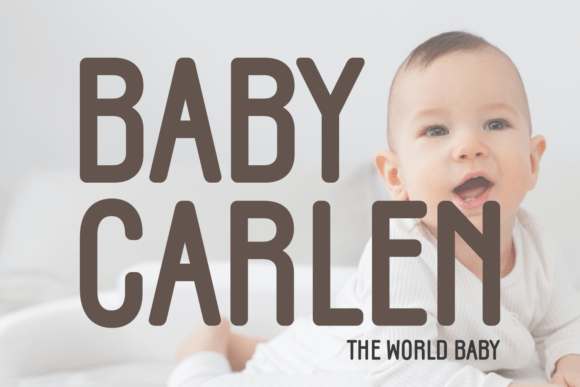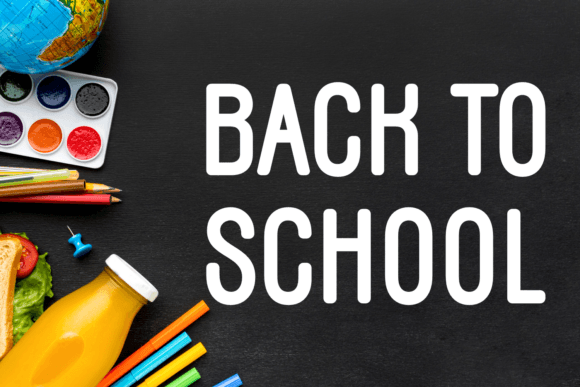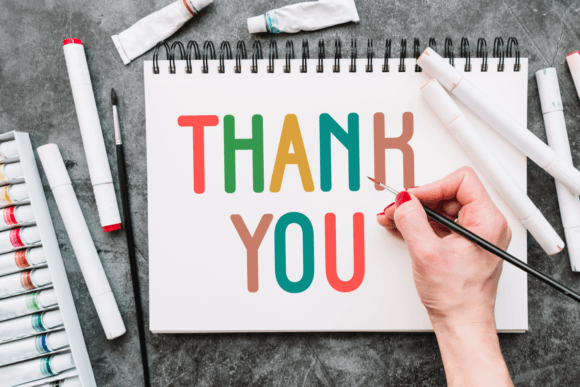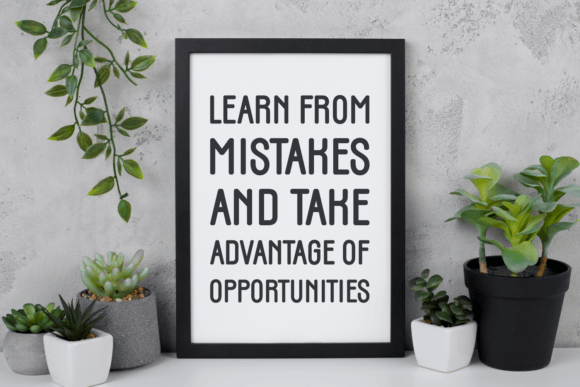
Introducing Billman Font: The Ultimate Choice for Modern Designs
In the world of typography, fonts play a crucial role in making or breaking a design. A well-chosen font can elevate your project from ordinary to extraordinary. If you’re a designer or crafter looking for a clean, modern, and elegant sans serif font, look no further than Billman Font. In this article, we’ll dive into the features, benefits, and uses of Billman Font, and explore why it’s the perfect choice for your next creative project.
What is Billman Font?
Billman Font is a sleek and contemporary sans serif font that boasts smooth lines and gentle curves. Its clean design makes it incredibly easy to read, making it perfect for a wide range of applications. Whether you’re working on a logo, invitation, poster, or any other creative project, Billman Font is an excellent choice.
Key Features of Billman Font
- Clean and Modern Design: Billman Font features a fresh and modern design that’s perfect for designs that require a sleek and sophisticated look.
- Smooth Lines and Gentle Curves: The font’s smooth lines and gentle curves make it easy to read and add a touch of elegance to your designs.
- Sans Serif: As a sans serif font, Billman Font is perfect for designs that require a clean and minimalist look.
- Highly Versatile: Billman Font can be used for a wide range of projects, from invitations and posters to logos and branding materials.
Benefits of Using Billman Font
So, why choose Billman Font for your next project? Here are just a few benefits of using this amazing font:
- Enhance Readability: Billman Font’s clean design and smooth lines make it easy to read, even at small sizes.
- Add Elegance to Your Designs: The font’s gentle curves and modern design add a touch of sophistication to any project.
- Stand Out from the Crowd: With its unique and modern design, Billman Font is sure to make your designs stand out from the crowd.
- Save Time: With Billman Font, you can create professional-looking designs in no time, thanks to its ease of use and versatility.
Uses of Billman Font
So, what can you use Billman Font for? The possibilities are endless! Here are a few ideas to get you started:
- Invitations: Use Billman Font to create beautiful and elegant invitations for weddings, parties, and other special occasions.
- Posters: Create eye-catching posters for events, promotions, or advertisements using Billman Font.
- Logos and Branding: Use Billman Font to create a professional and modern logo for your business or brand.
- Creative Projects: Billman Font is perfect for any creative project that requires a modern and elegant touch, such as brochures, flyers, and more.